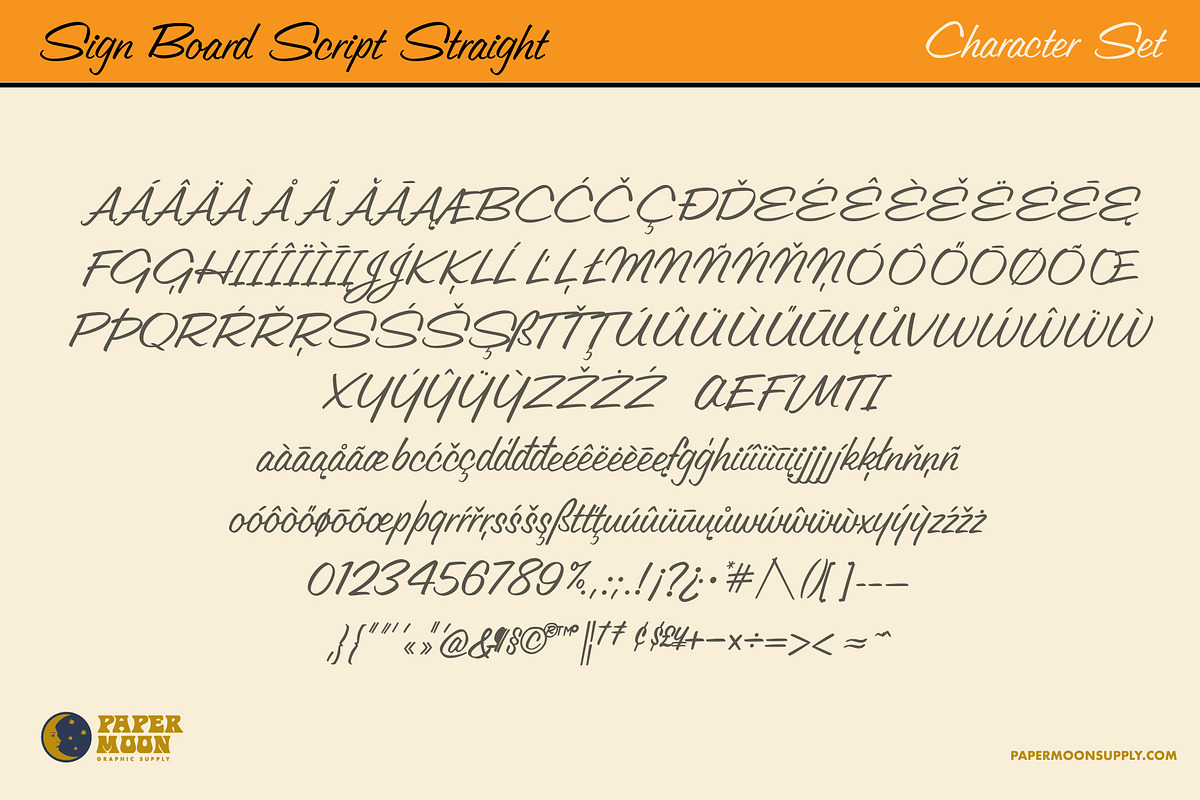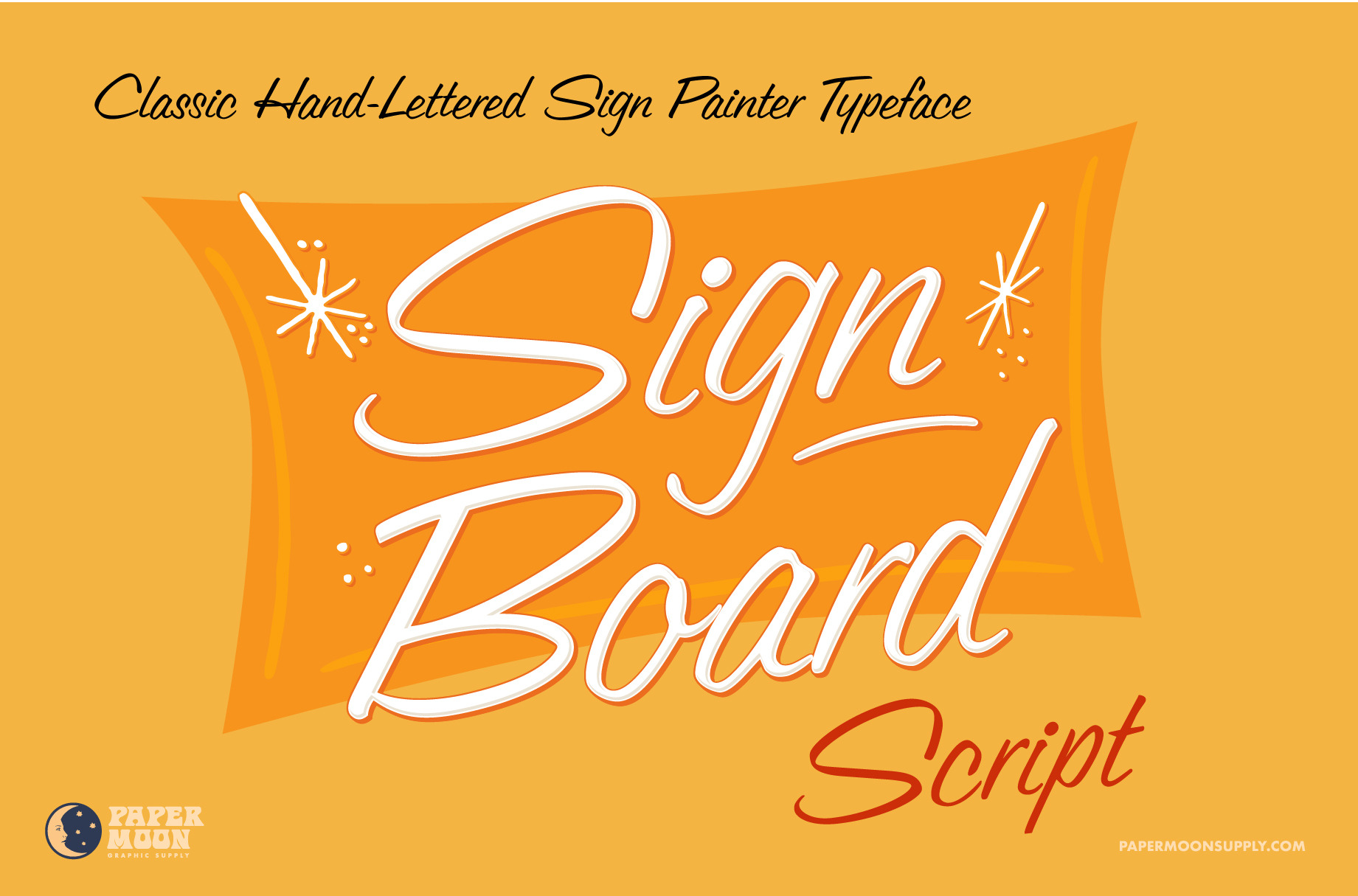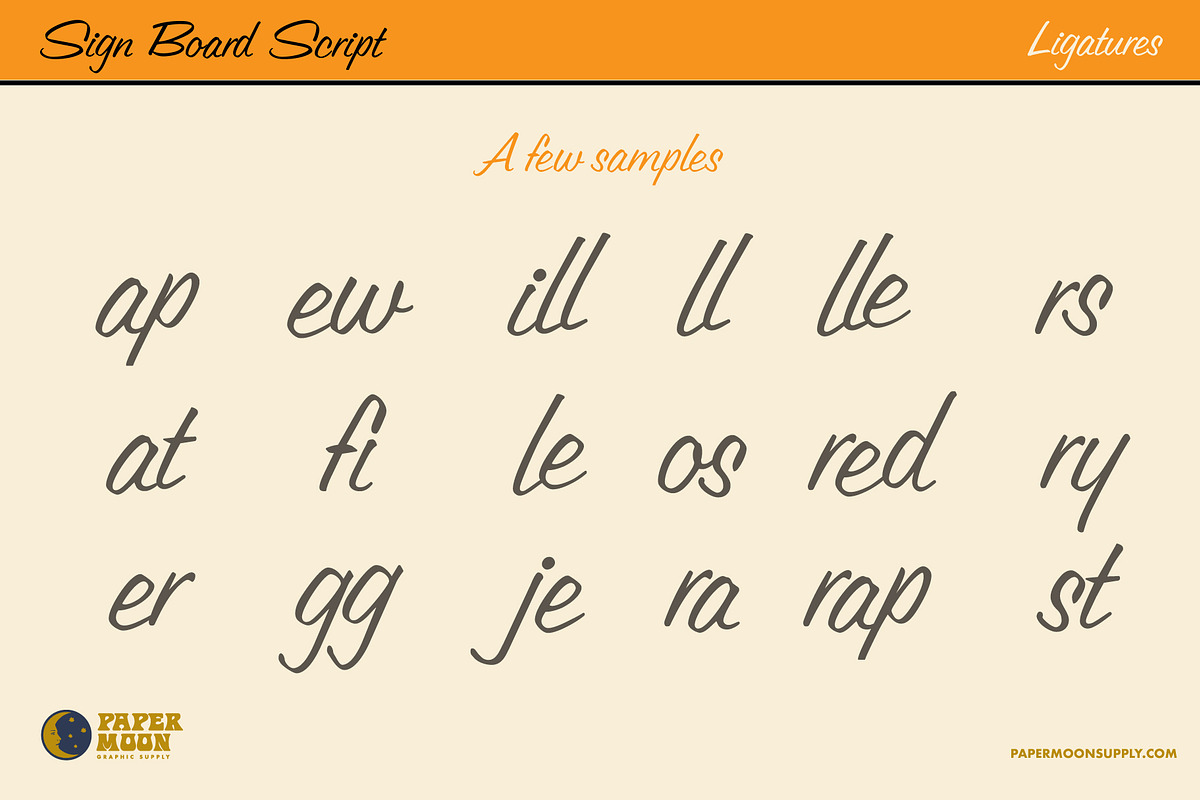
Signboard Script Retro Script Font
PM Signboard Script
A new retro script font inspired by the hand-painted vintage lettering used on posters, signs, and in advertising.
- Two Styles: Fancy Looped Caps and Retro Caps
- Complete alphabet, number, and punctuation sets
PM Signboard Script was developed by award-winning illustrator and designer Scott Banks.